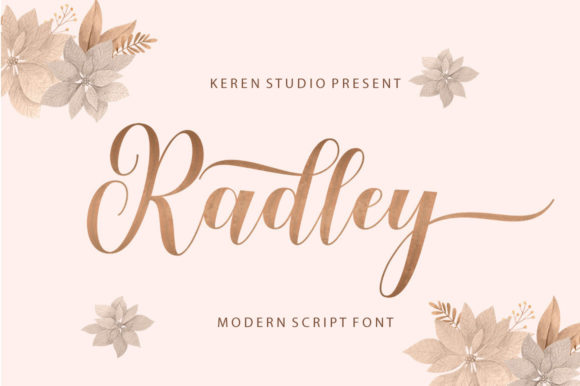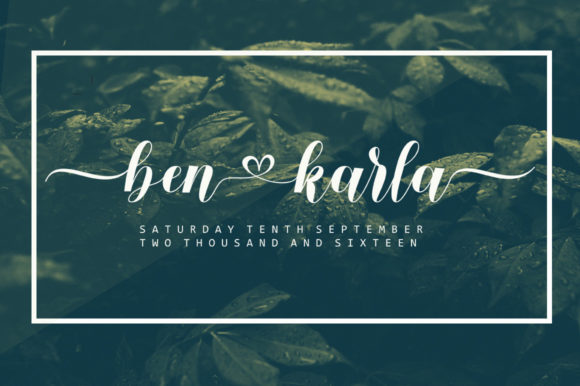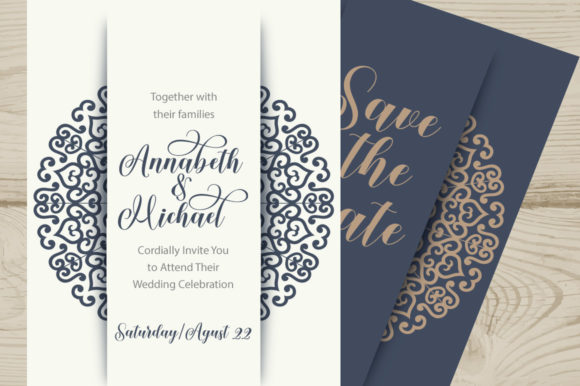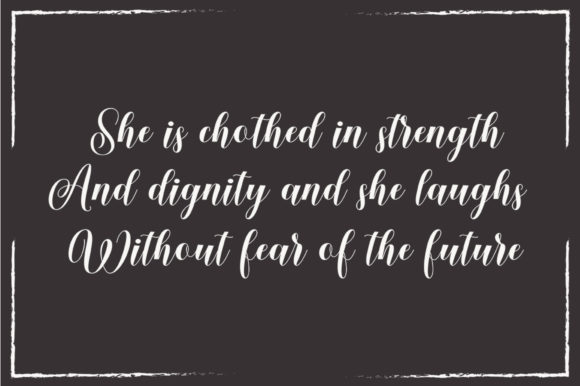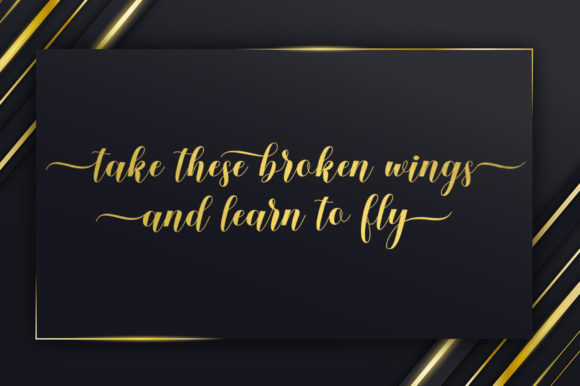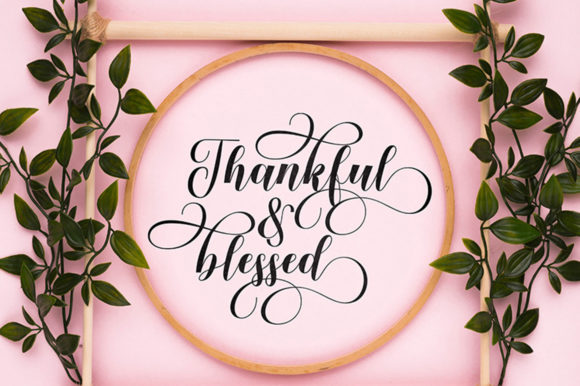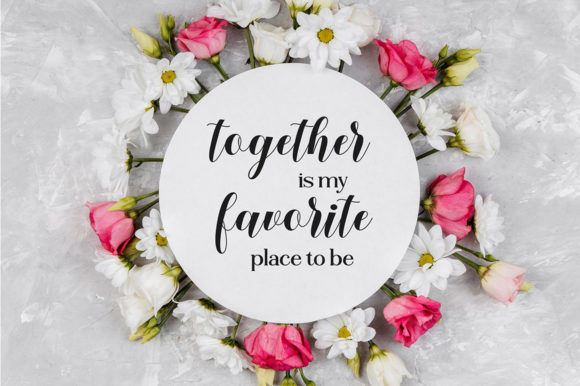
Radley Script Font
About Radley Script Font
Radley Script is a modern script font with an irregular baseline, offering a unique and appealing handwritten style. This font’s irregular baseline adds a handcrafted charm and artistic touch to your designs. Whether you’re working on branding, logos, invitations, or other creative projects, you can utilize Radley Script’s distinctive flair.
Thanks to its PUA encoding, you can easily access the amazing glyphs and ligatures that Radley Script font includes. This provides a wonderful advantage for adding more flexibility and originality to your designs. Perfect for both headings and body text, this font is an ideal choice to make your projects stand out and achieve an impressive look.
The elegant and fluid characters of Radley Script bring sophistication to your designs. The irregular baseline not only adds vibrancy and dynamism to your text but also contributes to the font’s unique and personalized style. Particularly well-suited for projects like wedding invitations, cards, posters, and social media posts, this font is excellent for creating eye-catching visuals.
If you’re looking to enhance the visual appeal and impact of your designs, consider choosing Radley Script to add an elegant touch with its modern lines.